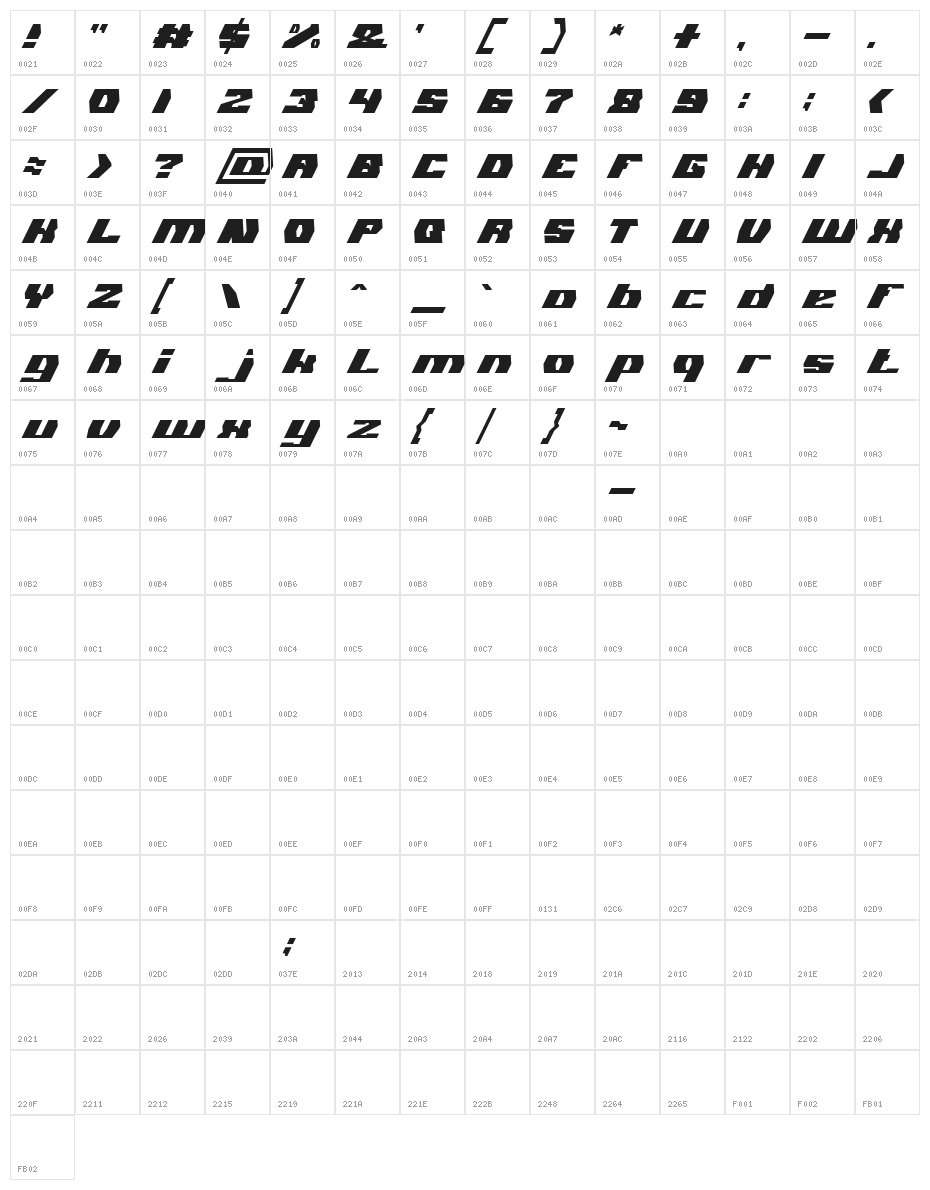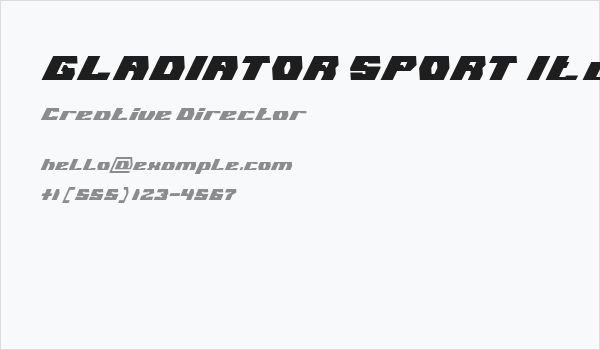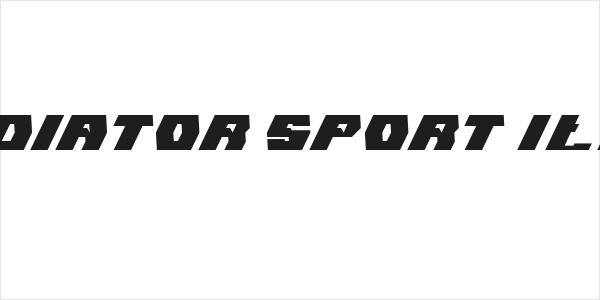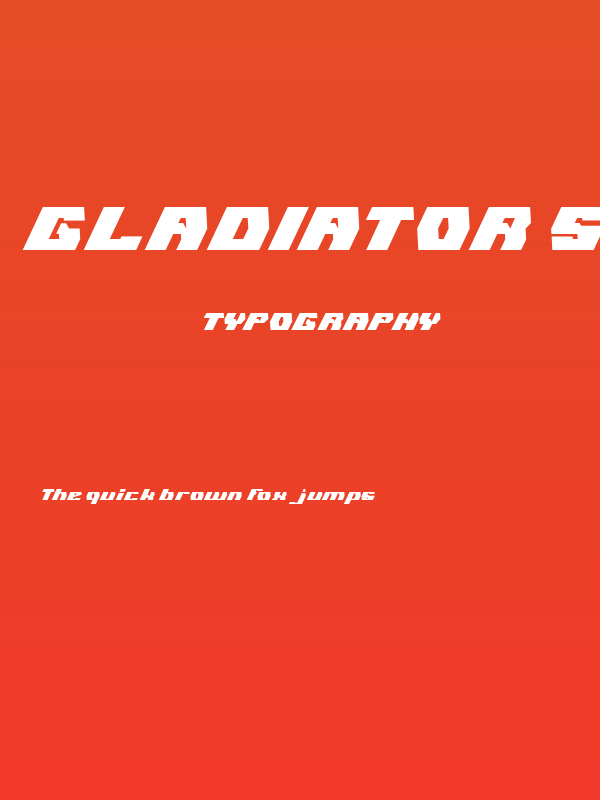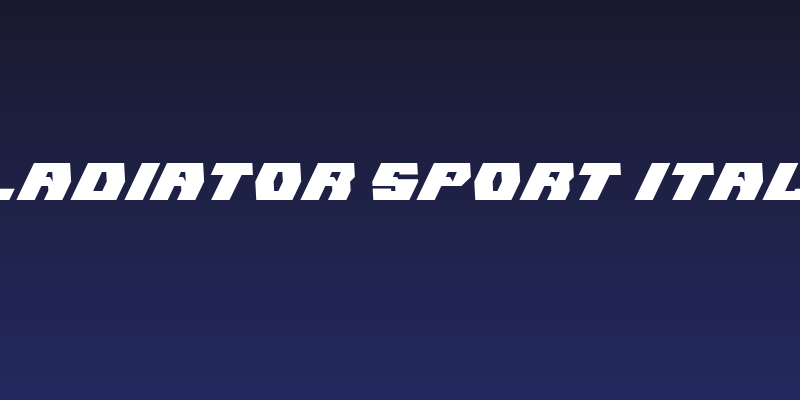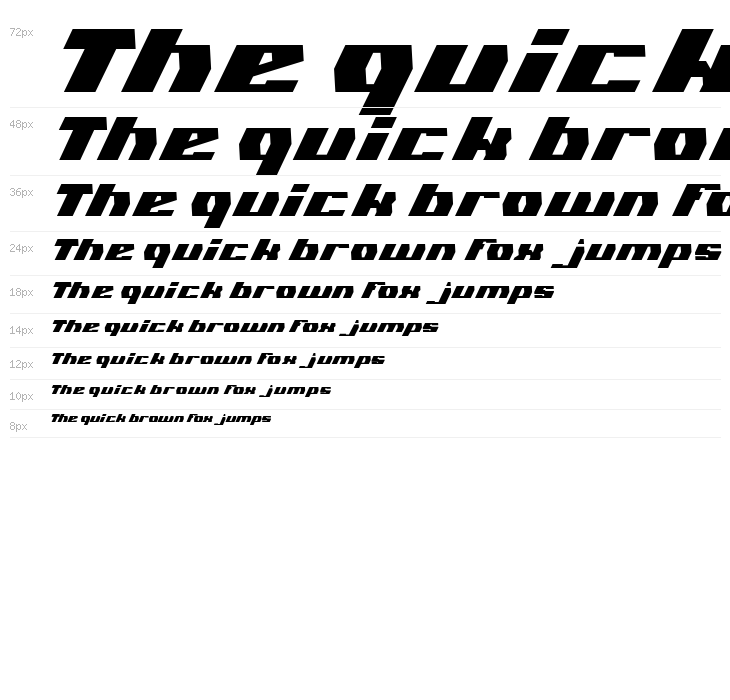
GLADIATOR SPORT Italic Font
GLADIATOR SPORT Italic Description
This font features a bold, italicized style with a strong, angular design. The characters are sharply cut, giving a sense of movement and energy. The uppercase and lowercase letters maintain a consistent slant, enhancing the italic effect. Numbers and special characters follow the same angular theme, ensuring uniformity across all glyphs. The font's boldness and geometric shapes make it stand out, suitable for dynamic and impactful designs.
| Proposed Projects | Ideal for sports branding, dynamic posters, and action-themed graphics. |